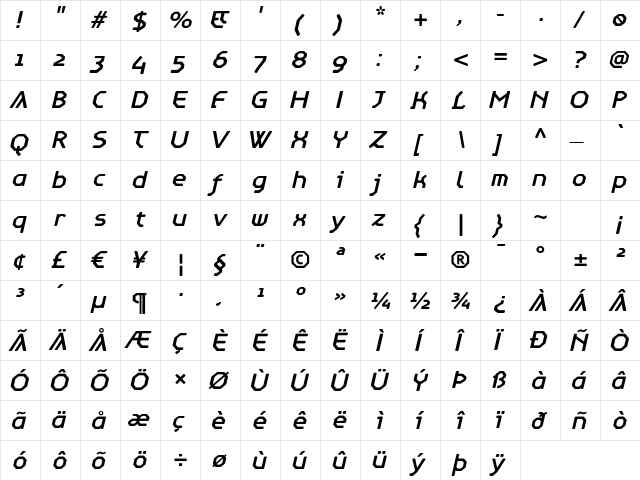
AlertMedium Italic Regular
Design Context for AlertMedium Italic Typeface
AlertMedium Italic takes a measured approach to typography — its balanced proportions and neutral character make it a reliable workhorse for both digital and print work. The dynamic lean of this cut emphasises speed and emphasis in any layout.